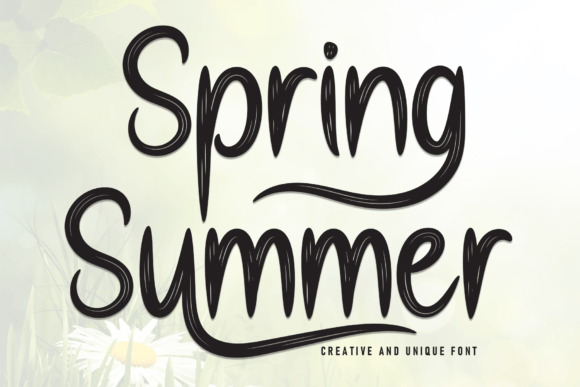
Dive into the world of Spring Summer Font, a captivating script font family that exudes charm and warmth. Designed by the talented William Jhardy, this font is a delightful fusion of elegance and playfulness, perfectly suited for adding a personal touch to any creative project.
With its flowing lines and graceful curves, Spring Summer Font evokes a sense of joy and carefree spirit. Each letter is meticulously crafted to capture the essence of handwritten beauty, bringing a touch of authenticity to your designs. The font's playful personality makes it ideal for adding a whimsical touch to wedding invitations, greeting cards, posters, and social media graphics.
Step into a world of endless possibilities with Spring Summer Font. Its versatility knows no bounds, making it a perfect choice for a wide range of design projects. From eye-catching logos and branding materials to stunning website designs and product packaging, this font has the power to transform your creative visions into captivating realities.
Whether you're a seasoned designer or just starting your creative journey, Spring Summer Font is the perfect companion for adding a unique and memorable touch to your work. Its user-friendly nature makes it accessible to designers of all skill levels, ensuring that your creative ideas can come to life with ease.
Embrace the magic of Spring Summer Font and let your creativity blossom. Its enchanting charm and timeless appeal will leave a lasting impression on your audience, captivating their hearts and imaginations. Download Spring Summer Font today and embark on a journey of creative expression like never before.